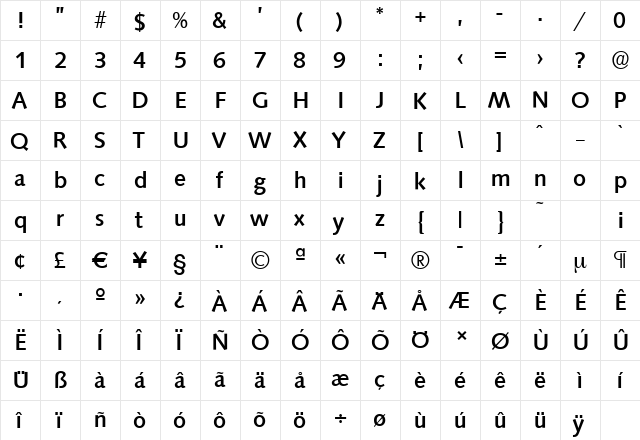
SaxonySerial-Medium Regular
DesignerSoftMaker Software GmbH
Design Context for SaxonySerial-Medium Typeface
SaxonySerial-Medium offers clean, dependable letterforms without strong stylistic allegiance, making it a practical choice for designers who need flexibility.